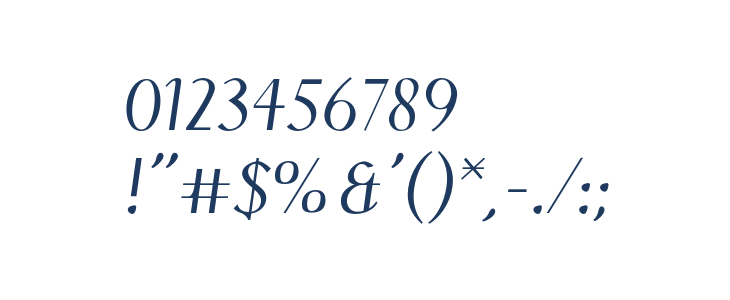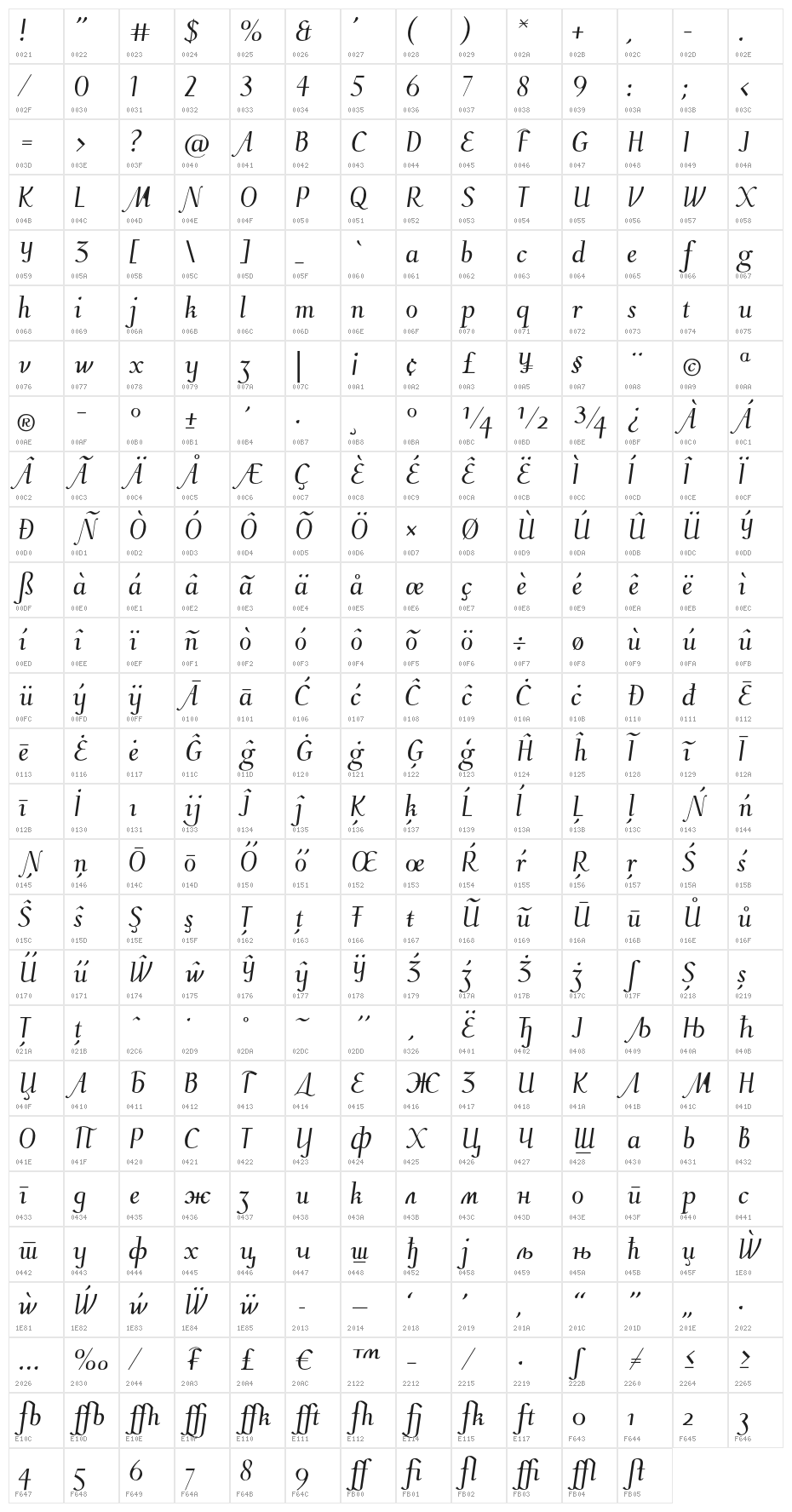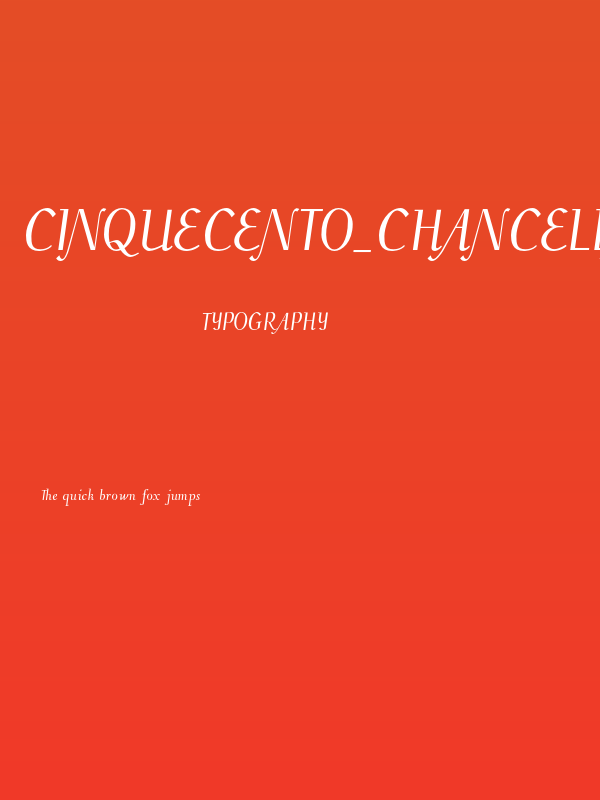
Cinquecento_Chancellaresca Font
Cinquecento_Chancellaresca Description
This elegant script font features a classic chancery style with a flowing, cursive design. The characters have a slight slant, giving them a dynamic and sophisticated appearance. The uppercase letters are ornate with subtle flourishes, while the lowercase letters maintain a smooth and consistent flow. The numerals are distinct and easy to read, complementing the overall aesthetic. Special characters are well-integrated, maintaining the font's cohesive look. This font exudes a sense of formality and tradition, making it suitable for various refined applications.
| Use Case | Headlines, Invitations, Formal documents |
| Proposed Projects | Ideal for wedding invitations, formal event programs, certificates, and elegant branding. |